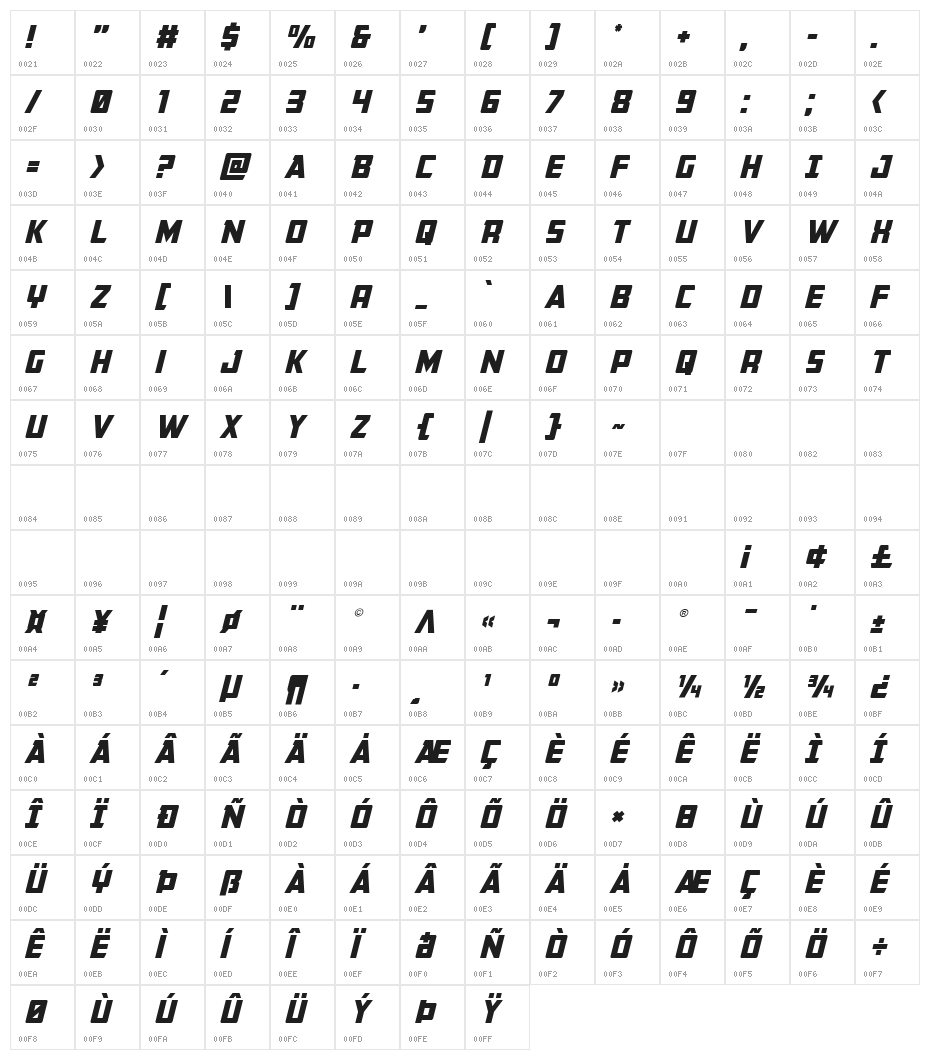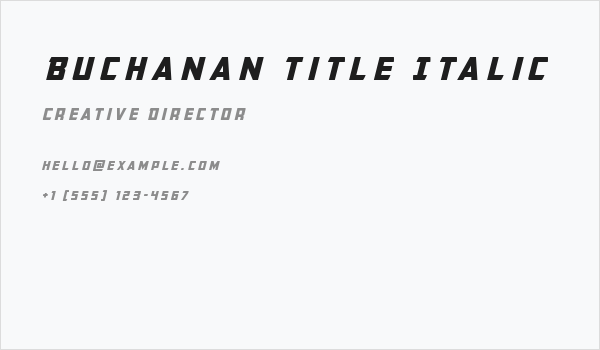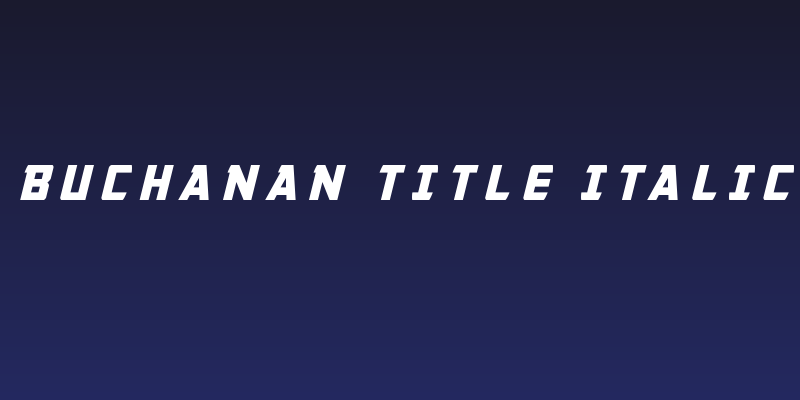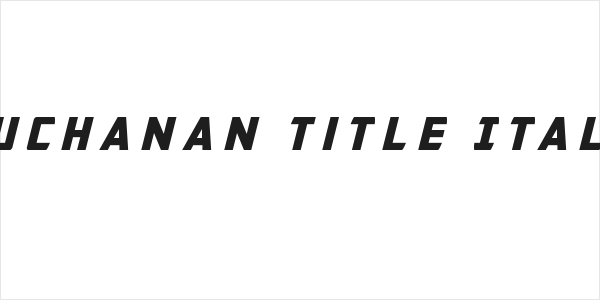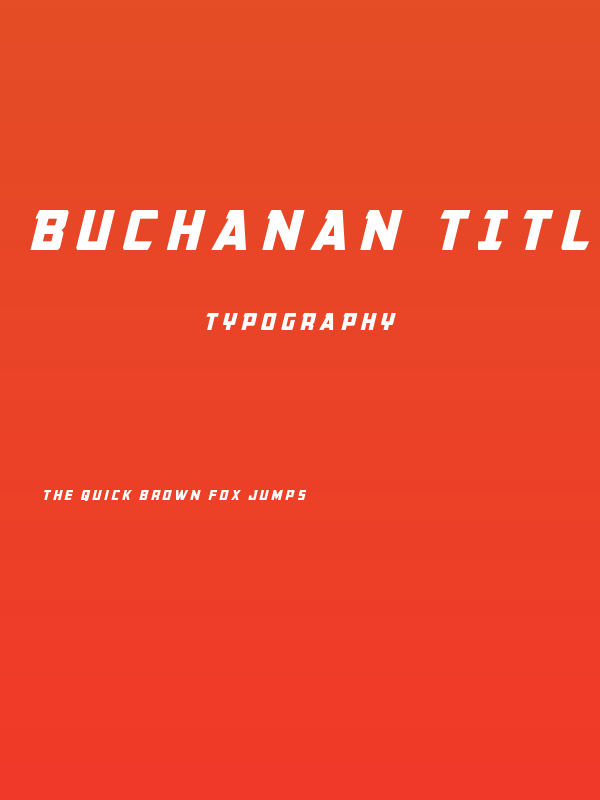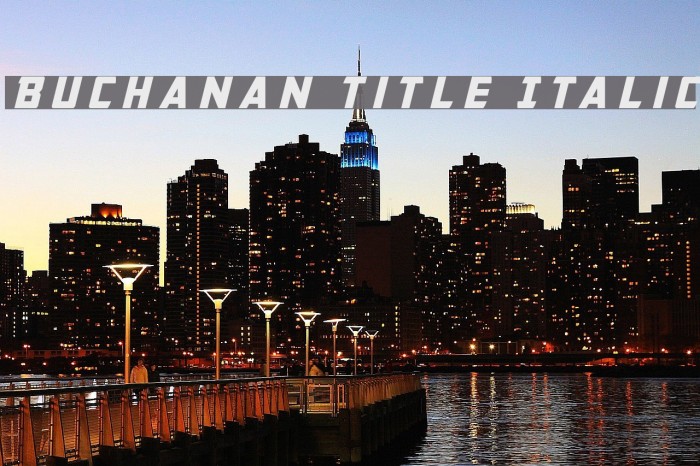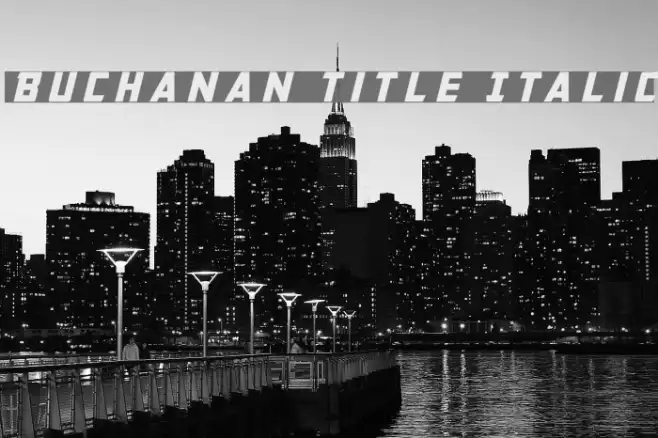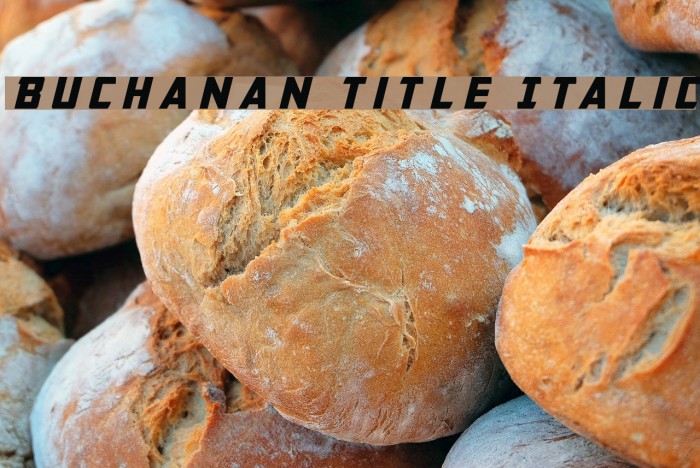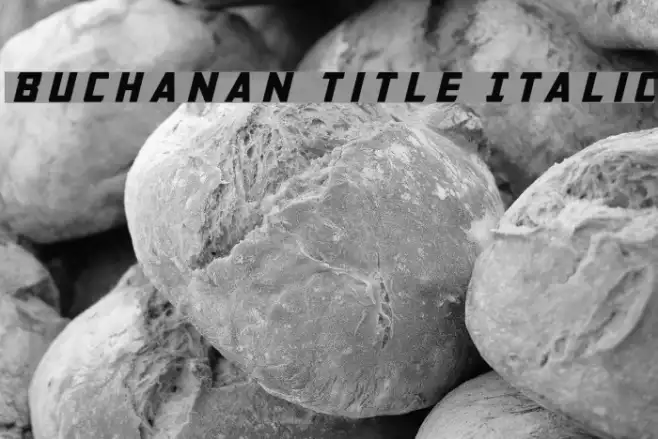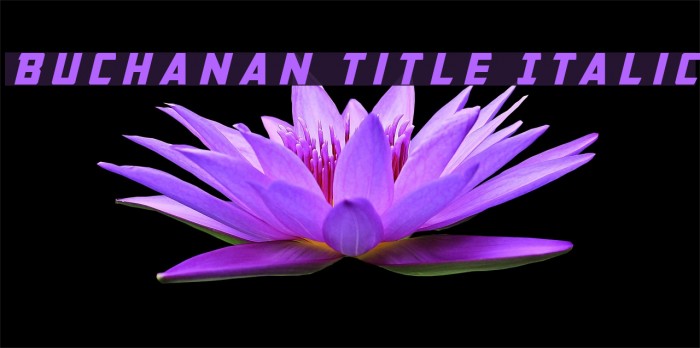
Buchanan Title Italic Font
Buchanan Title Italic Description
This font features a bold and dynamic italic style with a strong geometric influence. Each character is slightly slanted, giving a sense of motion and energy. The strokes are thick and consistent, providing a robust and impactful appearance. The angular cuts and sharp edges contribute to a modern and assertive look, making it suitable for attention-grabbing designs. The numerals and special characters maintain the same boldness and angularity, ensuring uniformity across all glyphs.
| Proposed Projects | Ideal for sports branding, dynamic posters, modern logos, and headlines that require a strong visual impact. |